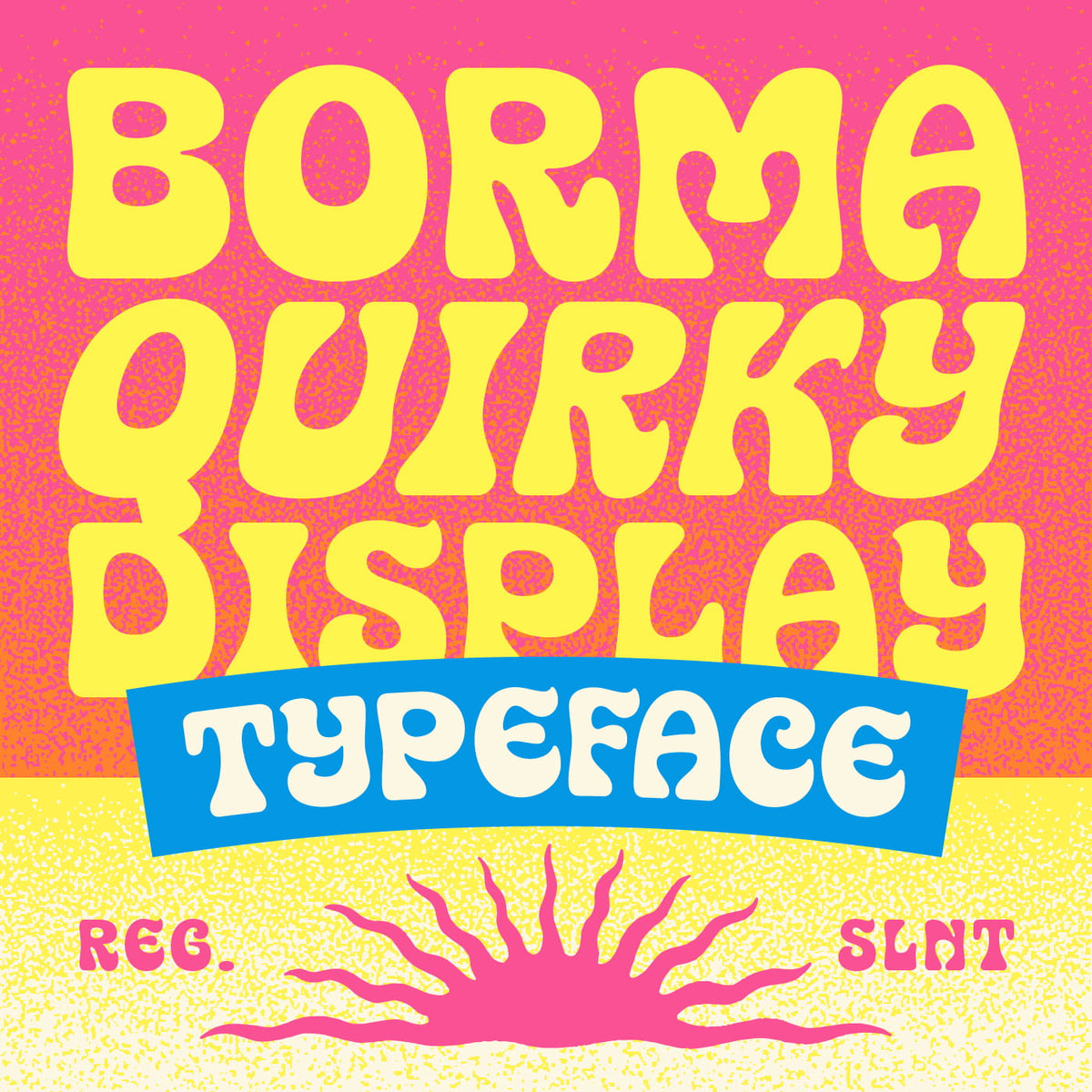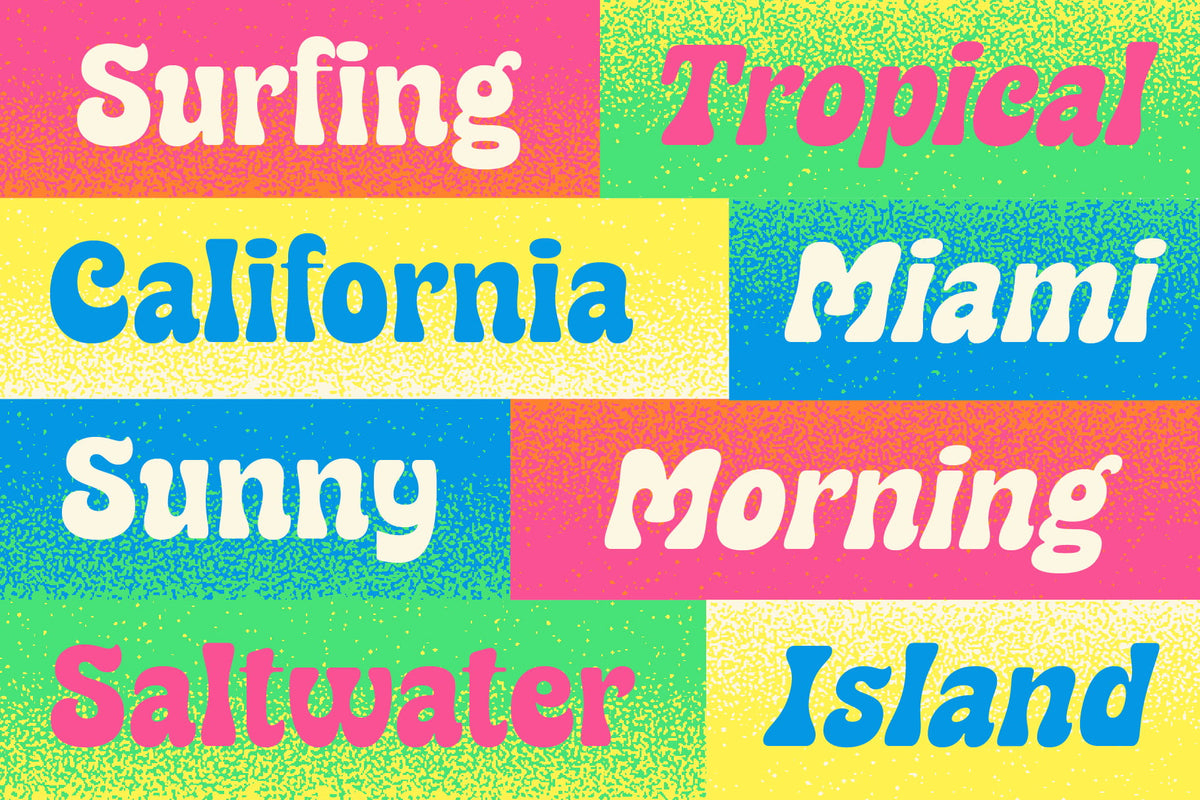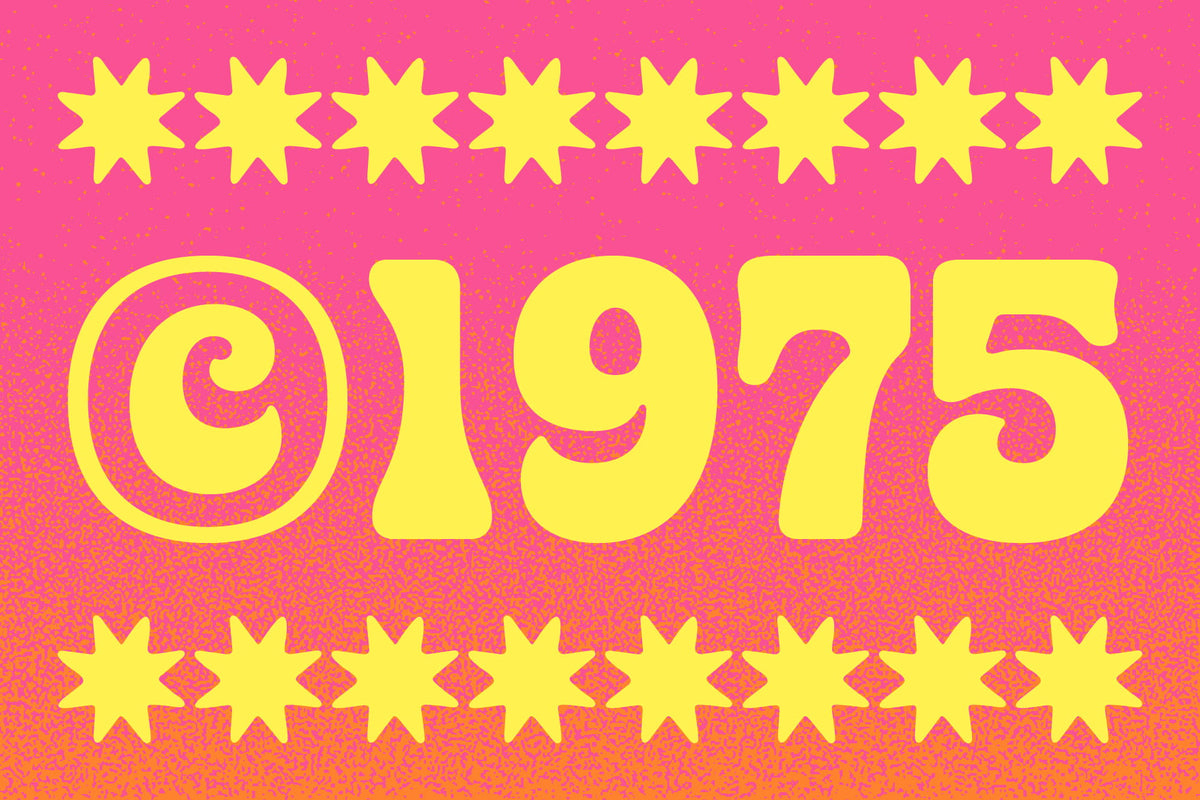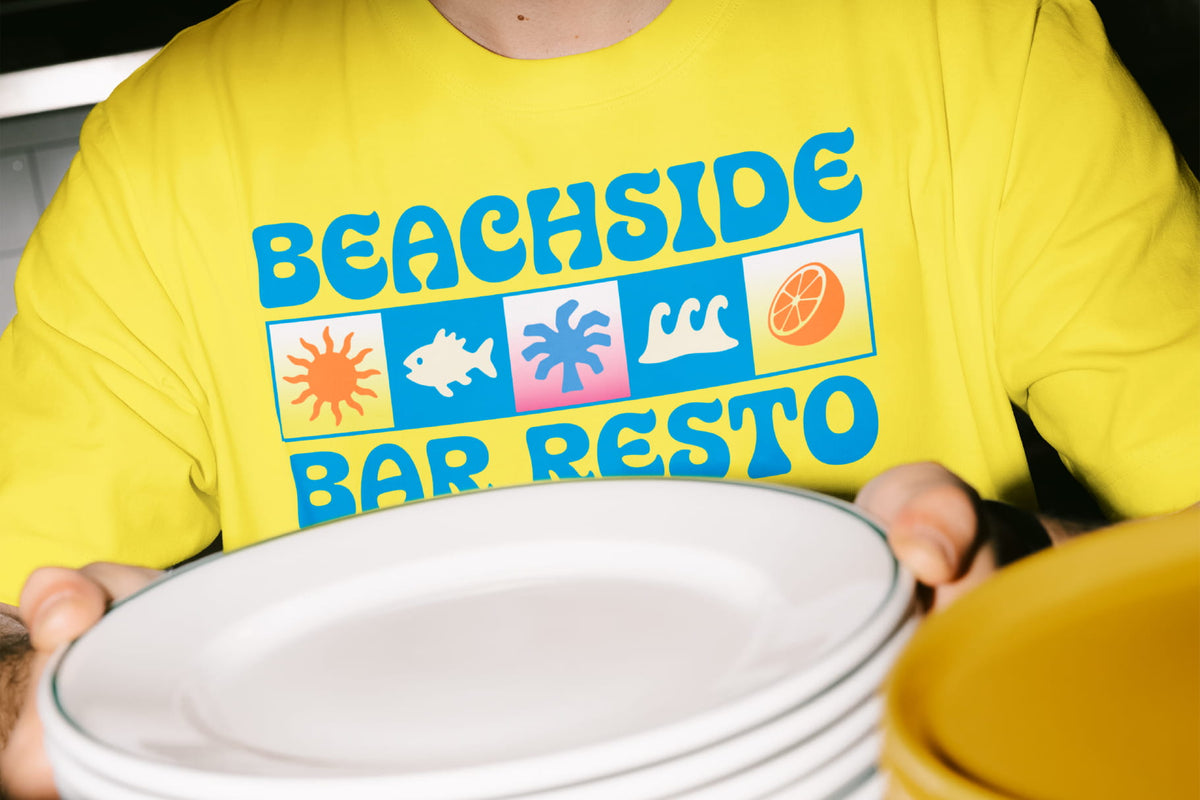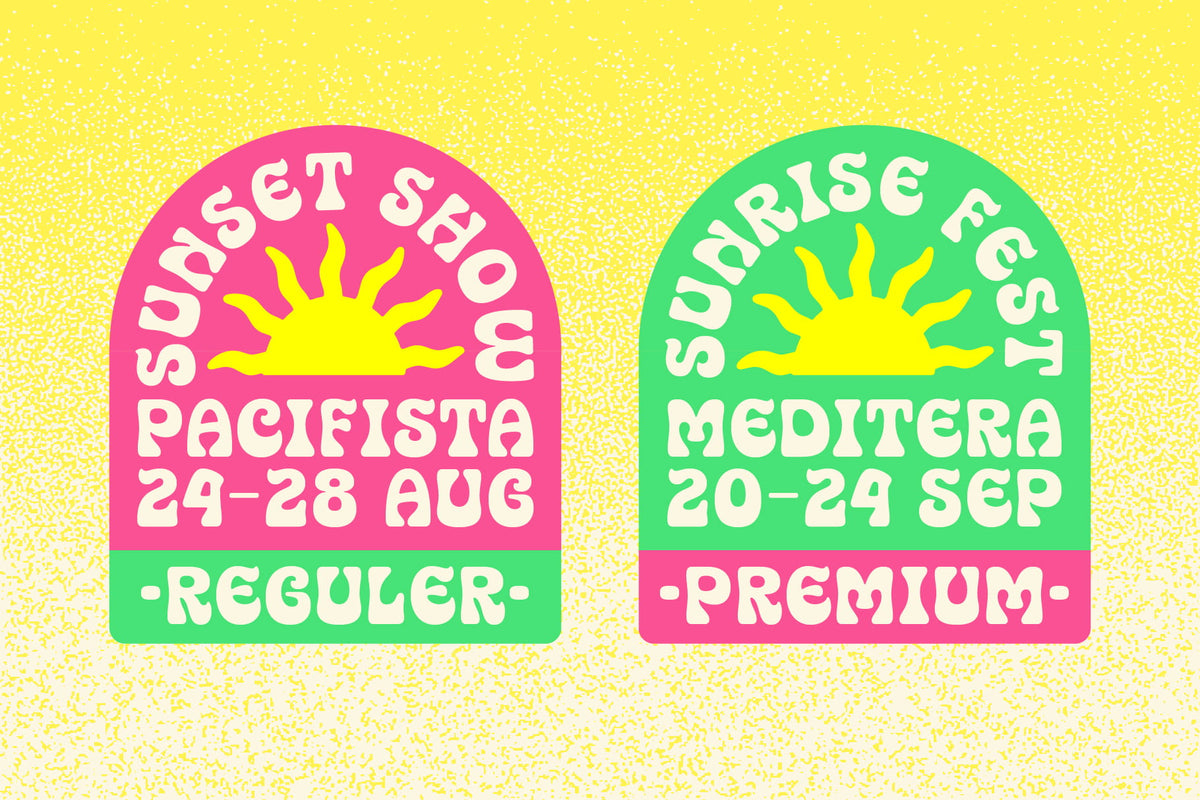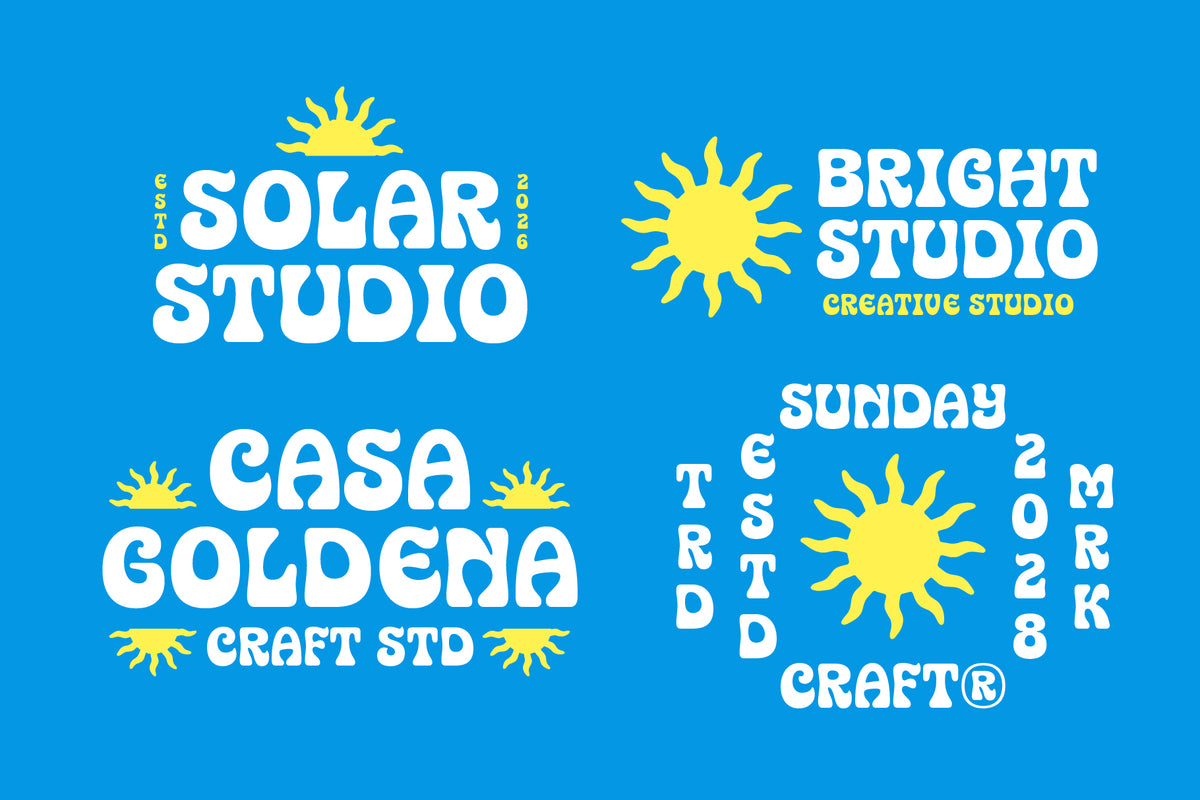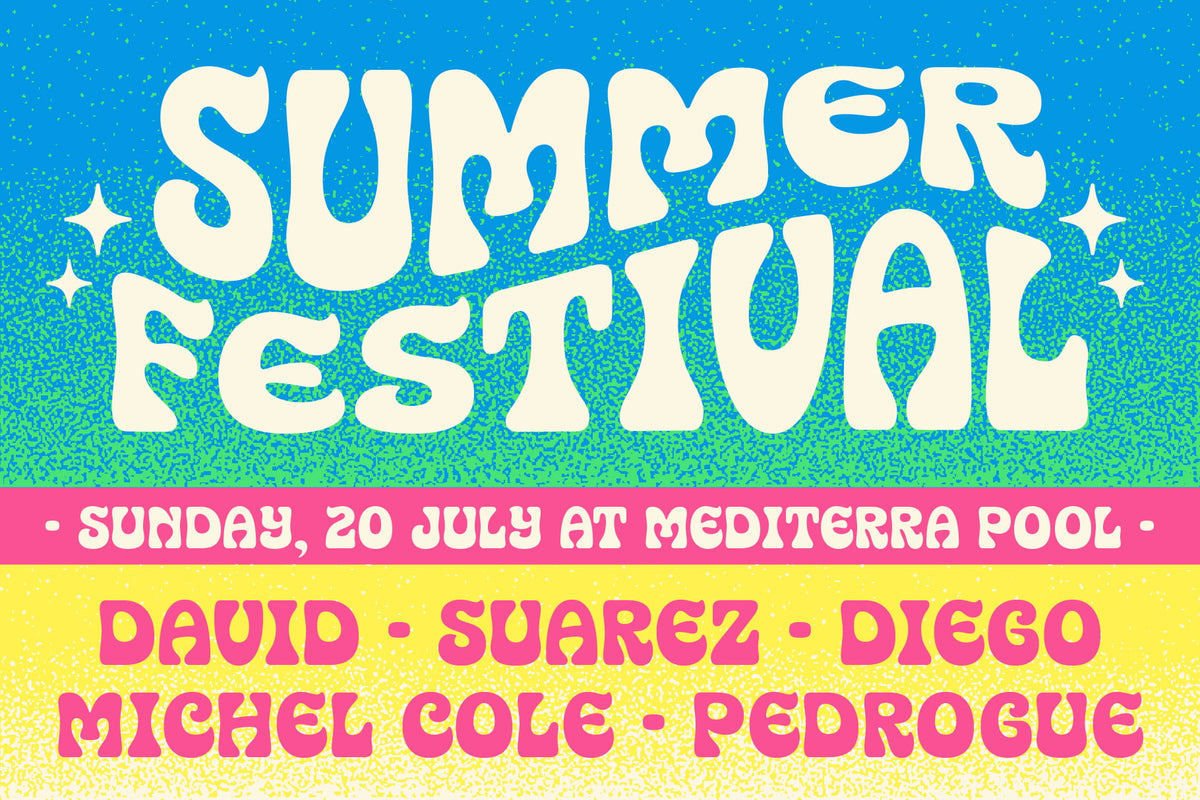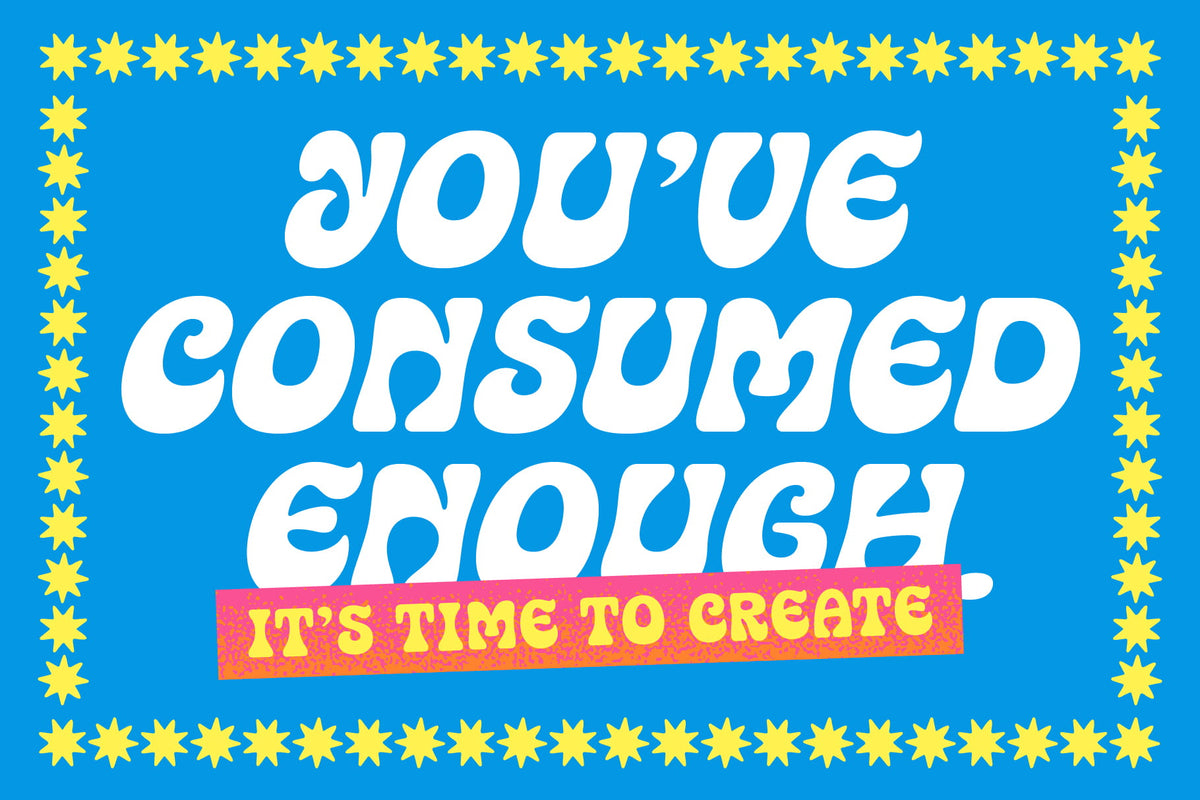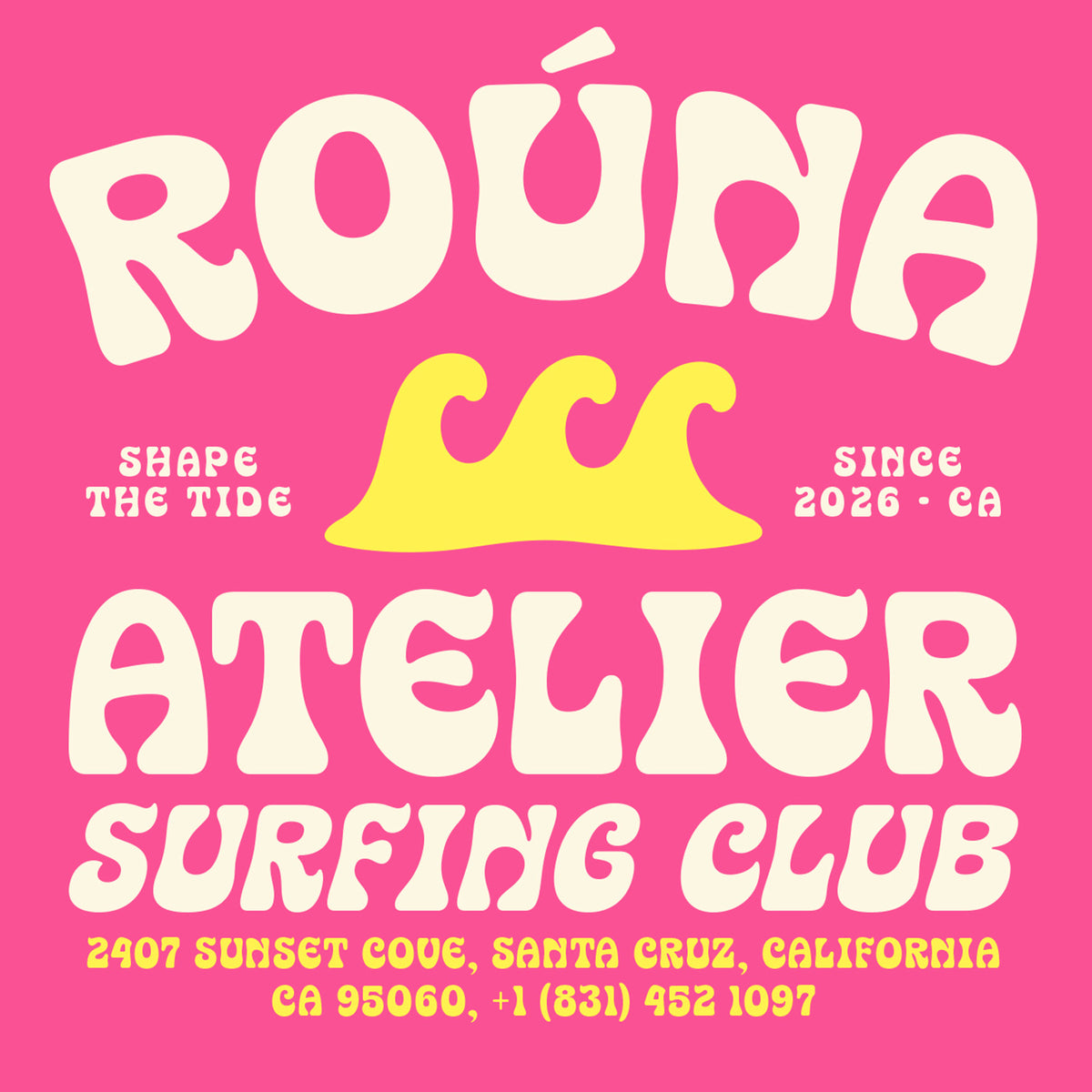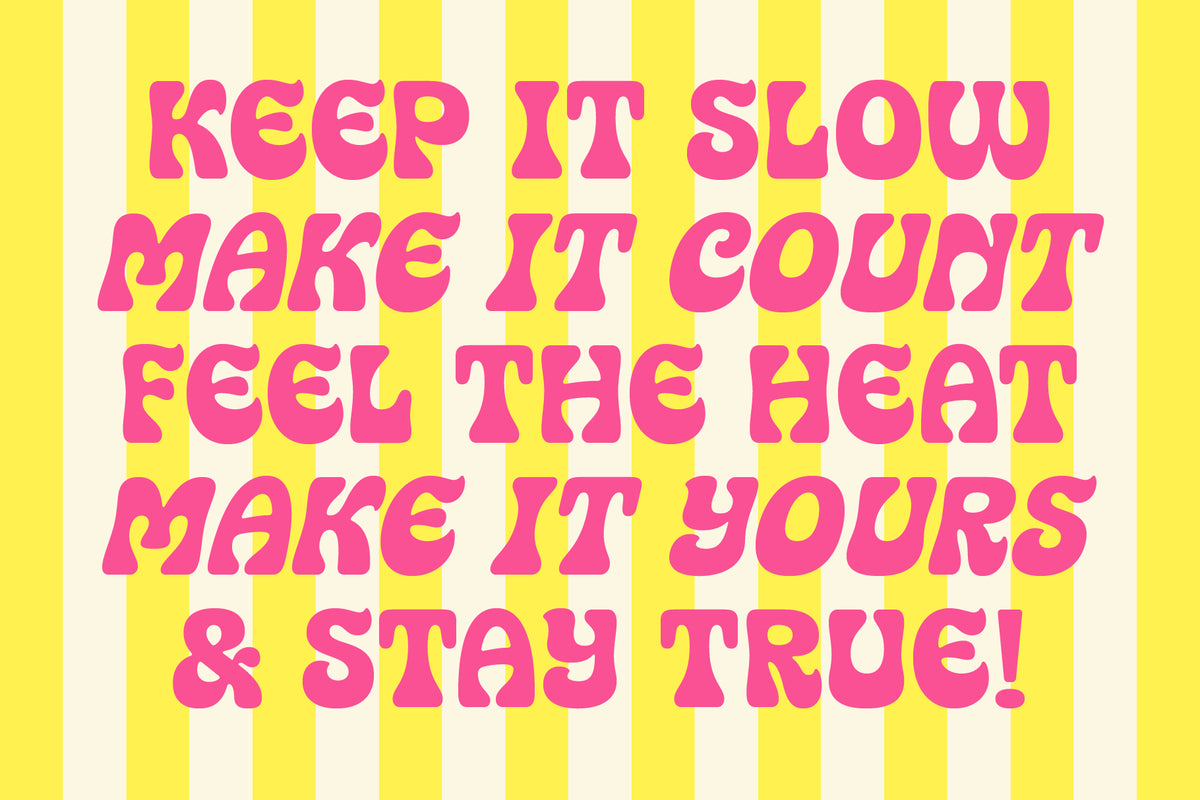
TNSC Borma Typeface
Borma is a playful retro display typeface with a soft, groovy, and cheerful personality. Inspired by vintage summer graphics, tropical signage, surf culture, beach clubs, colorful packaging, and 70s-style lettering, it features rounded curves and expressive shapes that give every word a warm and energetic character.
Its relaxed and friendly appearance makes it especially suitable for summer branding, food and beverage packaging, restaurants, beach clubs, resorts, apparel, posters, festivals, social media, and lifestyle graphics. With Regular and Slanted styles, it gives you enough flexibility to create both laid-back and more dynamic typographic compositions.
• 465 Glyphs
• 2 Styles (Regular, Slanted)
• Lowercase
• Diacritics
• Alternates
• Symbols